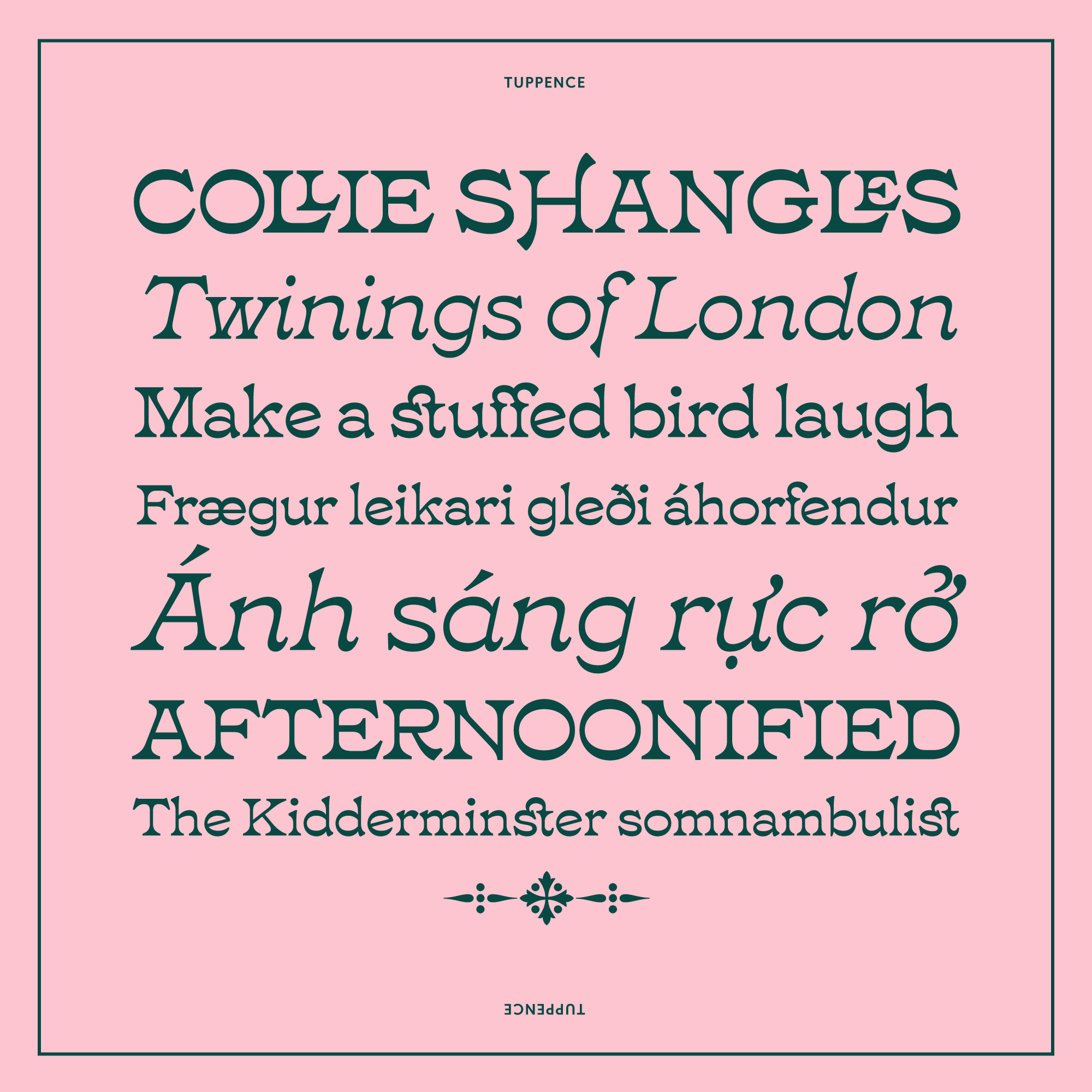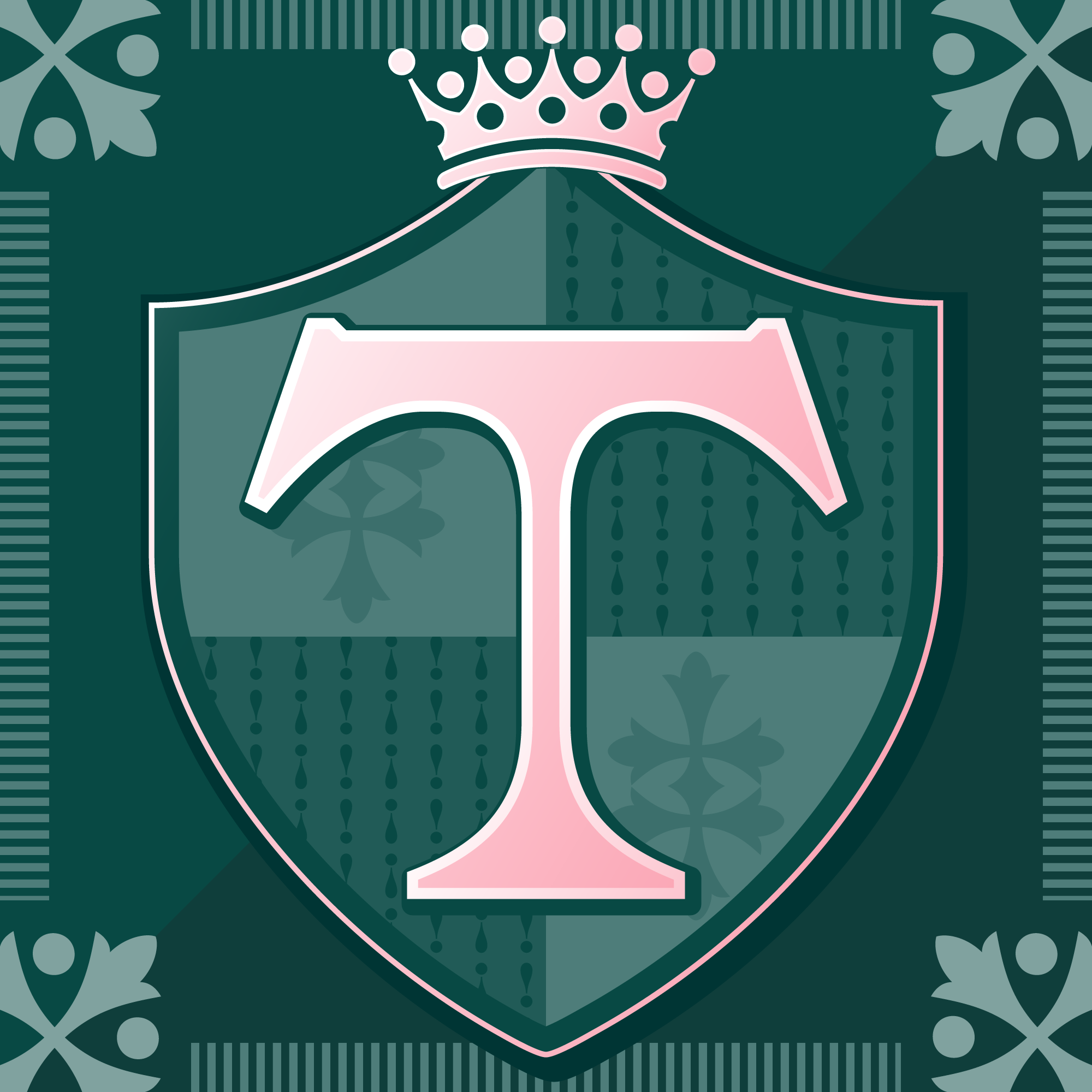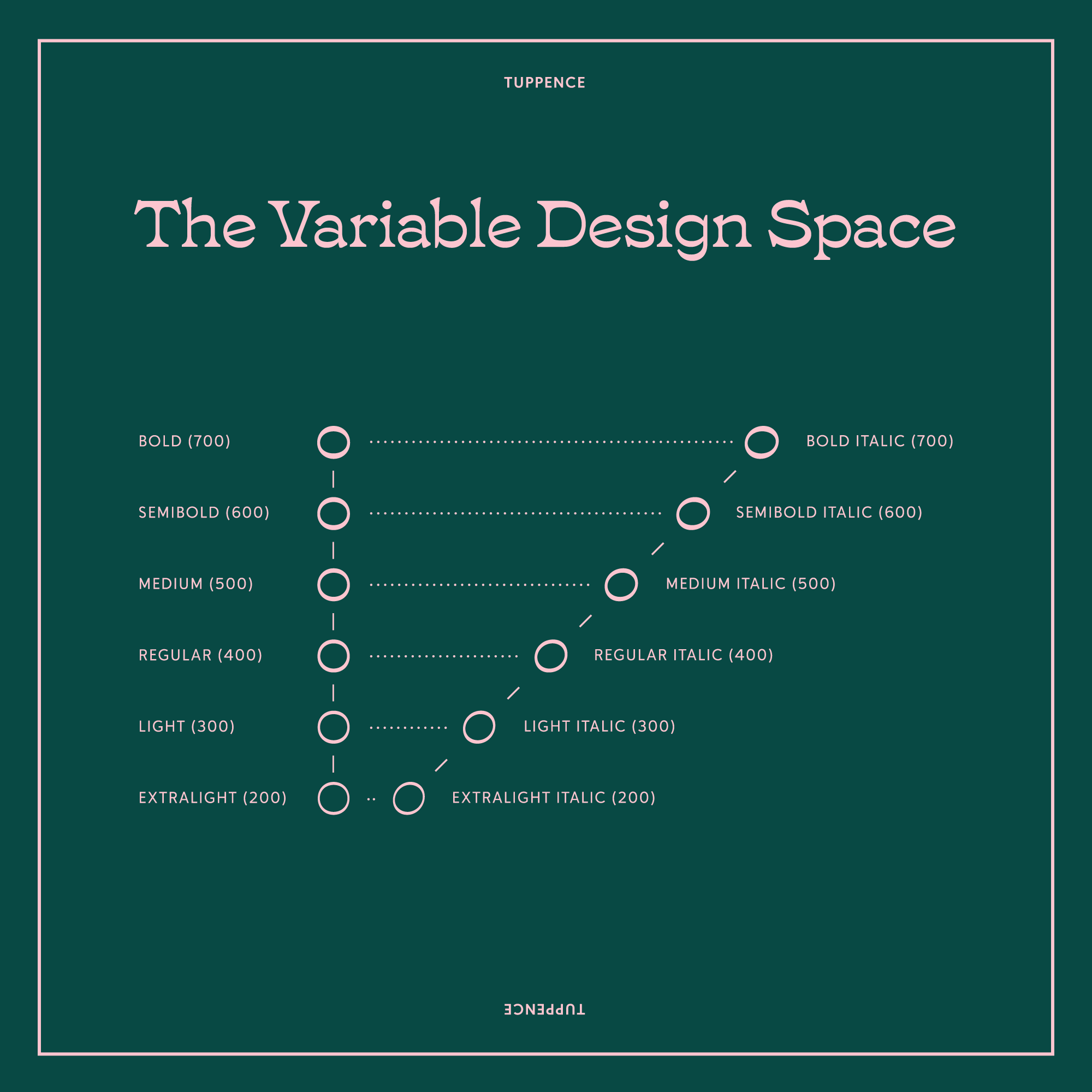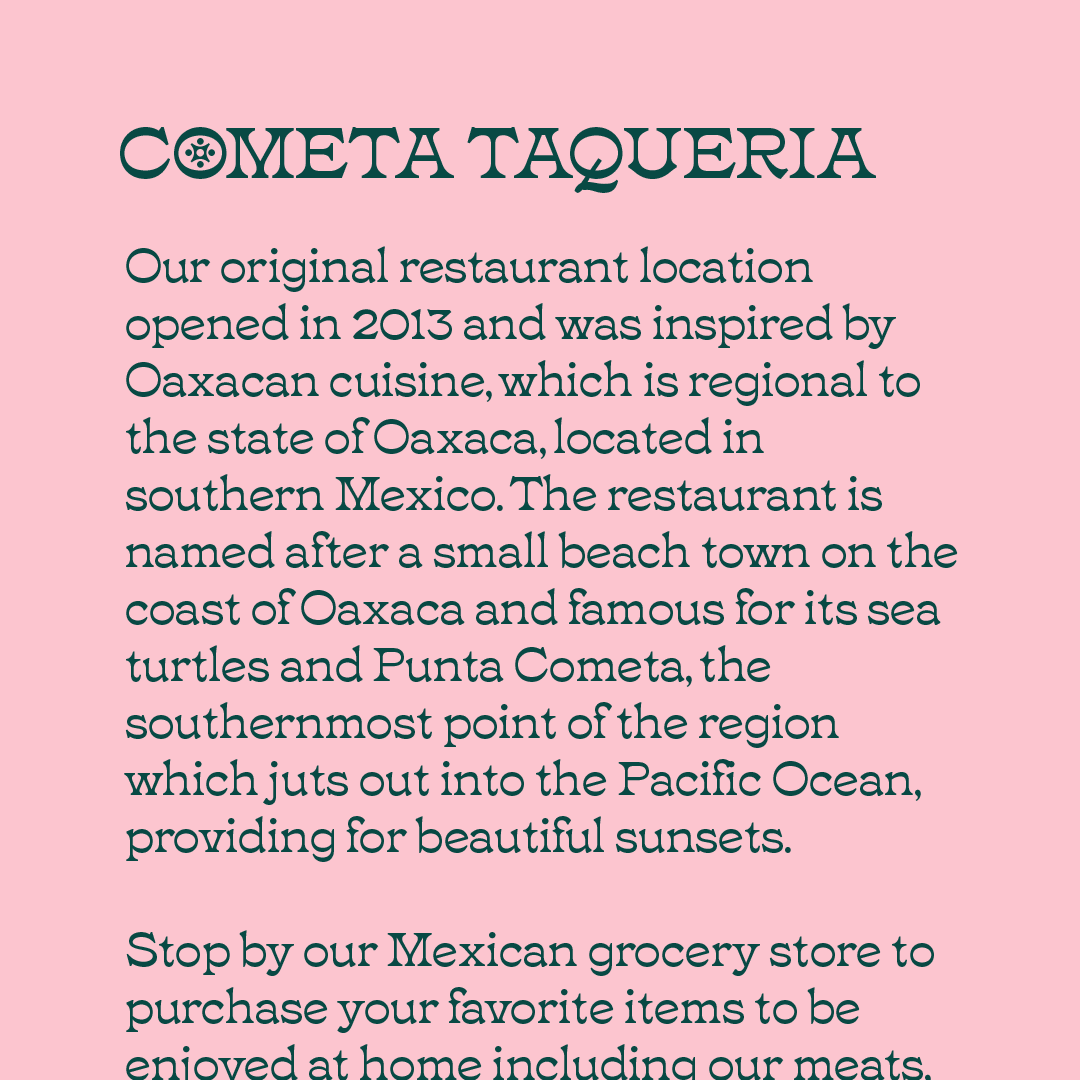
Tuppence®
Cultural legacy meets
contemporary design.
Designed by Roberto de Vicq de Cumptich
Inspired by the design of the London foundry Stephenson Blake typeface Blackfriars, designer Roberto de Vicq de Cumptich saw real potential for the design to be reinterpreted in a manner that today’s designers will find more useful. de Vicq’s vision for the design was to bring a more graceful appearance to the forms and explore its reversed contrast nature with additional weights.
The proportions of the lowercase letters in Tuppence are decidedly wider overall, allowing for a more geometric appearance and increasing the typeface’s contemporary appeal. Some of the less refined details were omitted and optical weight distribution improved.
Tuppence includes a marvelous selection of catch words, swash capital letters and ligatures, plus over a hundred beautiful ornaments, symbols, and arrows perfect for carrying the elegant aesthetic over into other areas of your design.
Tuppence retains the warmth and craftsmanship from its English primogenitor of the Victorian era. When considering its application, picture Tuppence in places like food and beverage labels, greeting cards, posters, restaurant logos, and other display mediums.
Additional features include: Case-Sensitive Forms, Capital Spacing, Denominators, Numerators, Fractions, Standard Ligatures, Ordinals, Small Capitals, and Localized Forms.